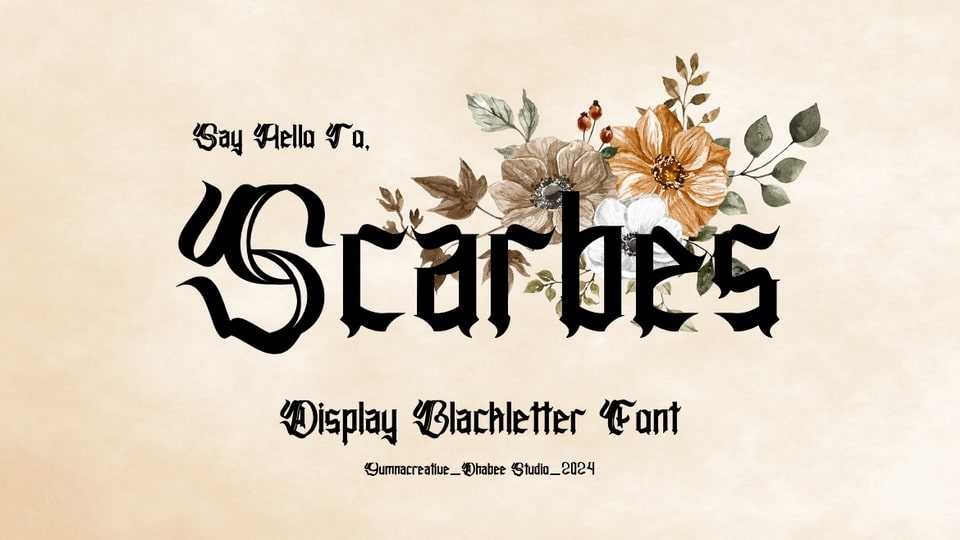
Download Scarbes font, a hand-drawn blackletter font that merges Gothic tradition with an artistic, decorative flair, transforming the classic angular style into a striking blend of historical elegance and contemporary creativity.
Designer: Dhabee Studio